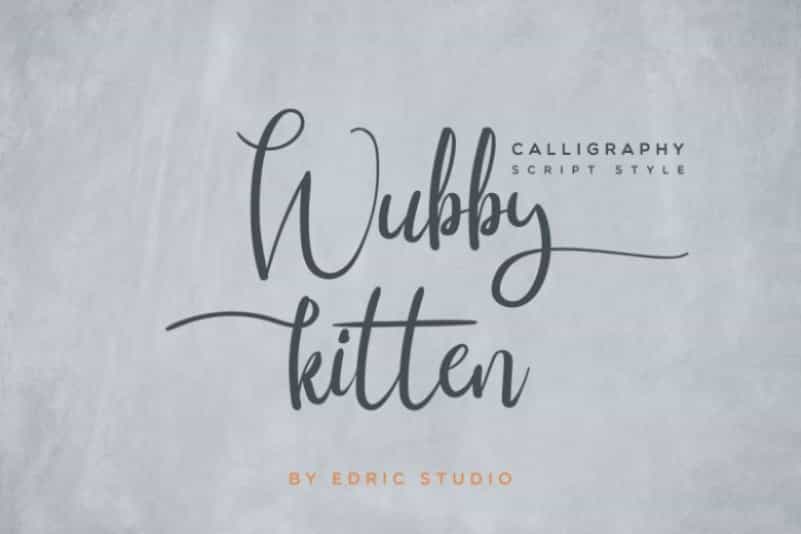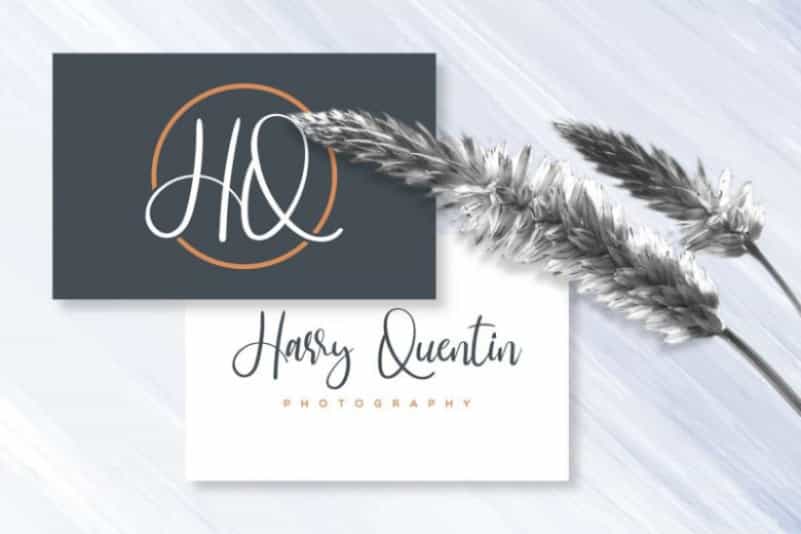
Wubby Kitten is an unique calligraphy script typeface in the brush style. This font has a beautiful character set, which is well managed with the right spaces and kerning. The theme style of this font is elegant, vintage, stylish, sophisticated and classic brush calligraphic natural lettering style.